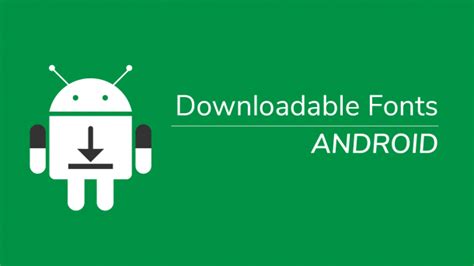
The Best Downloadable Fonts For Android In 2023
Why Downloadable Fonts for Android?
If you're looking for ways to express your creativity, then one of the best ways to do it is to use downloadable fonts for Android. Downloadable fonts are a great way to add a unique look and feel to your device. They can be used to make text look more interesting, to create a unique design, or even to add a bit of fun to your device. With so many available fonts on the Google Play Store, there is sure to be something that suits your needs.
Downloadable fonts can be used for a variety of reasons. Some people like to customize the look of their device with fonts that match their personality. Others may use them to create a certain look or feel. Some fonts are designed to be used for specific purposes, such as creating a logo or header. With the wide range of fonts available, it's easy to find one that suits your needs.
The Benefits of Downloadable Fonts for Android
Using downloadable fonts for Android can bring a variety of benefits. For starters, they can help to make text look more interesting. They can also be used to create unique designs. This can be particularly useful if you're looking to create a logo or header for your device. Downloadable fonts can also provide a fun way to customize your device and make it stand out from the crowd.
Downloadable fonts can also be used to create a certain look or feel. You can find fonts that are designed for specific purposes, such as creating a logo or header. This can be an excellent way to create a unique design for your device. You can also find fonts that are designed for a certain style or look, such as a modern, funky, or classic design.
Finally, downloading fonts for Android can be a great way to add a bit of fun to your device. There are many fonts available that are designed to be humorous or playful. This can be a great way to make your device stand out from the rest.
Tips for Choosing the Best Downloadable Fonts for Android
When choosing the best downloadable fonts for Android, there are a few things to consider. First, you should consider the purpose for which the font will be used. Different fonts are designed for different purposes. Some fonts are designed for logos or headers, while others are designed for text. You should also consider the look and feel of the font. Some fonts are designed to be bold and eye-catching, while others are designed to be more subtle and unobtrusive.
You should also consider the type of font. Some fonts are designed for specific purposes, such as creating a logo or header. Other fonts are designed for general use. You should also consider the size of the font. Some fonts are designed to be larger or smaller than others.
Downloadable fonts for Android can be a great way to express your creativity. They can be used to create a unique look and feel for your device. They can also be used to create a certain look or feel. Finally, they can be a great way to add a bit of fun to your device. With so many fonts available, it is easy to find one that suits your needs.
Why Downloadable Fonts for Android?
If you're looking for ways to express your creativity, then one of the best ways to do it is to use downloadable fonts for Android. Downloadable fonts are a great way to add a unique look and feel to your device. They can be used to make text look more interesting, to create a unique design, or even to add a bit of fun to your device. With so many available fonts on the Google Play Store, there is sure to be something that suits your needs.
Downloadable fonts can be used for a variety of reasons. Some people like to customize the look of their device with fonts that match their personality. Others may use them to create a certain look or feel. Some fonts are designed to be used for specific purposes, such as creating a logo or header. With the wide range of fonts available, it's easy to find one that suits your needs.
The Benefits of Downloadable Fonts for Android
Using downloadable fonts for Android can bring a variety of benefits. For starters, they can help to make text look more interesting. They can also be used to create unique designs. This can be particularly useful if you're looking to create a logo or header for your device. Downloadable fonts can also provide a fun way to customize your device and make it stand out from the crowd.
Downloadable fonts can also be used to create a certain look or feel. You can find fonts that are designed for specific purposes, such as creating a logo or header. This can be an excellent way to create a unique design for your device. You can also find fonts that are designed for a certain style or look, such as a modern, funky, or classic design.
Finally, downloading fonts for Android can be a great way to add a bit of fun to your device. There are many fonts available that are designed to be humorous or playful. This can be a great way to make your device stand out from the rest.
Tips for Choosing the Best Downloadable Fonts for Android
When choosing the best downloadable fonts for Android, there are a few things to consider. First, you should consider the purpose for which the font will be used. Different fonts are designed for different purposes. Some fonts are designed for logos or headers, while others are designed for text. You should also consider the look and feel of the font. Some fonts are designed to be bold and eye-catching, while others are designed to be more subtle and unobtrusive.
You should also consider the type of font. Some fonts are designed for specific purposes, such as creating a logo or header. Other fonts are designed for general use. You should also consider the size of the font. Some fonts are designed to be larger or smaller than others.
Finally, you should consider the compatibility of the font. Some fonts are designed to be compatible with certain versions of Android, while others are not. You should also consider the cost of the font. Some fonts are free, while others cost money.
Downloadable fonts for Android can be a great way to express your creativity. They can be used to create a unique look and feel for your device. They can also be used to create a certain look or feel. Finally, they can be a great way to add a bit of fun to your device. With so many fonts available, it is easy to find one that suits your needs.